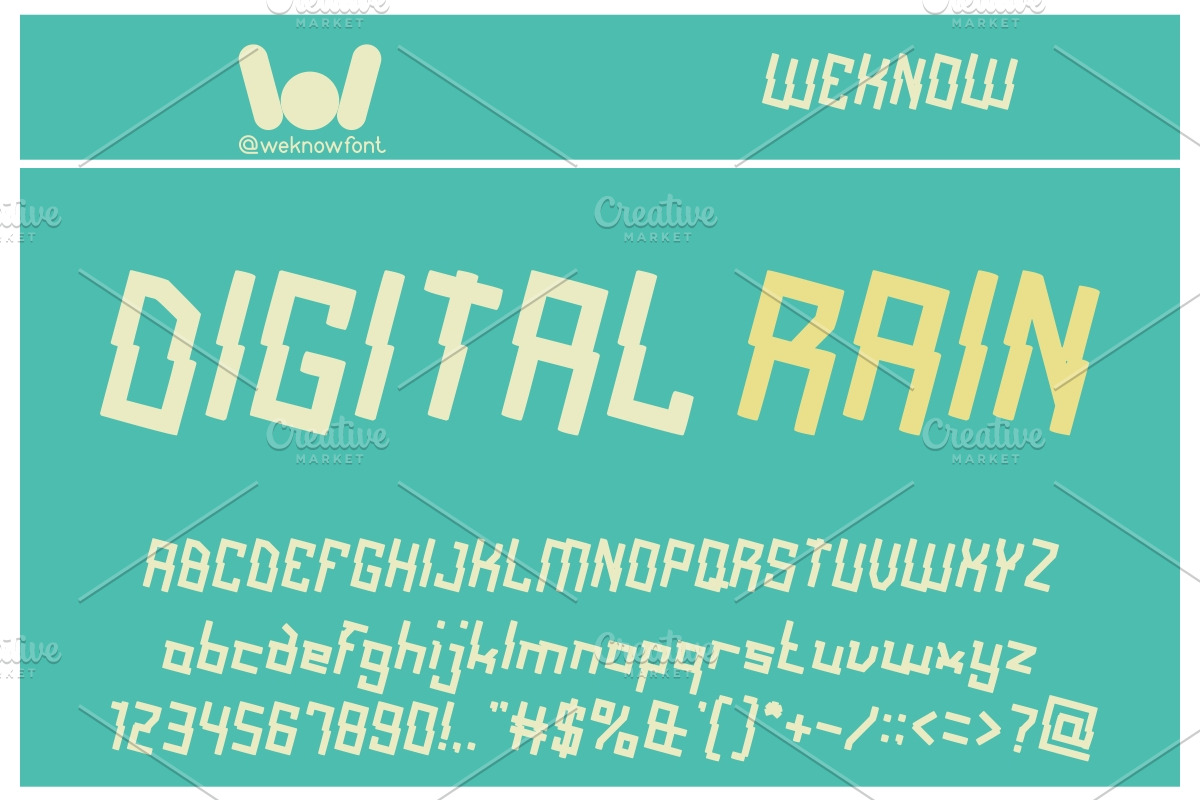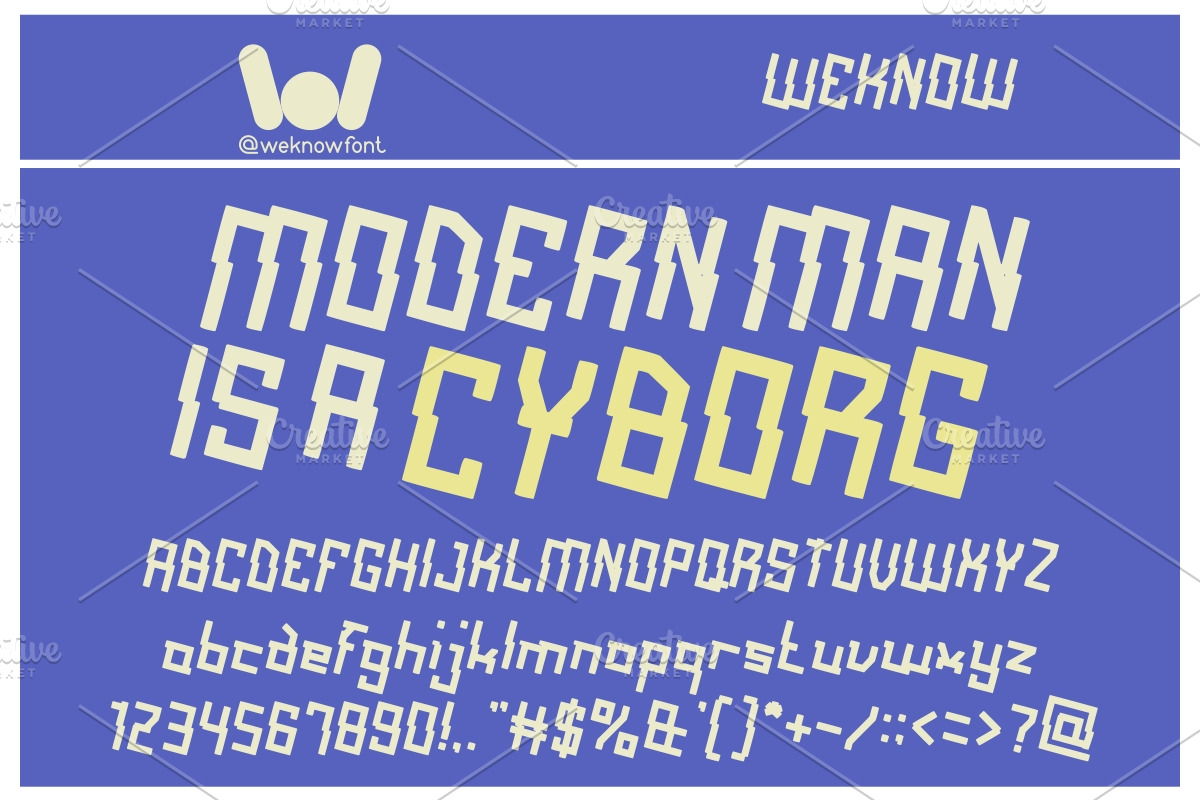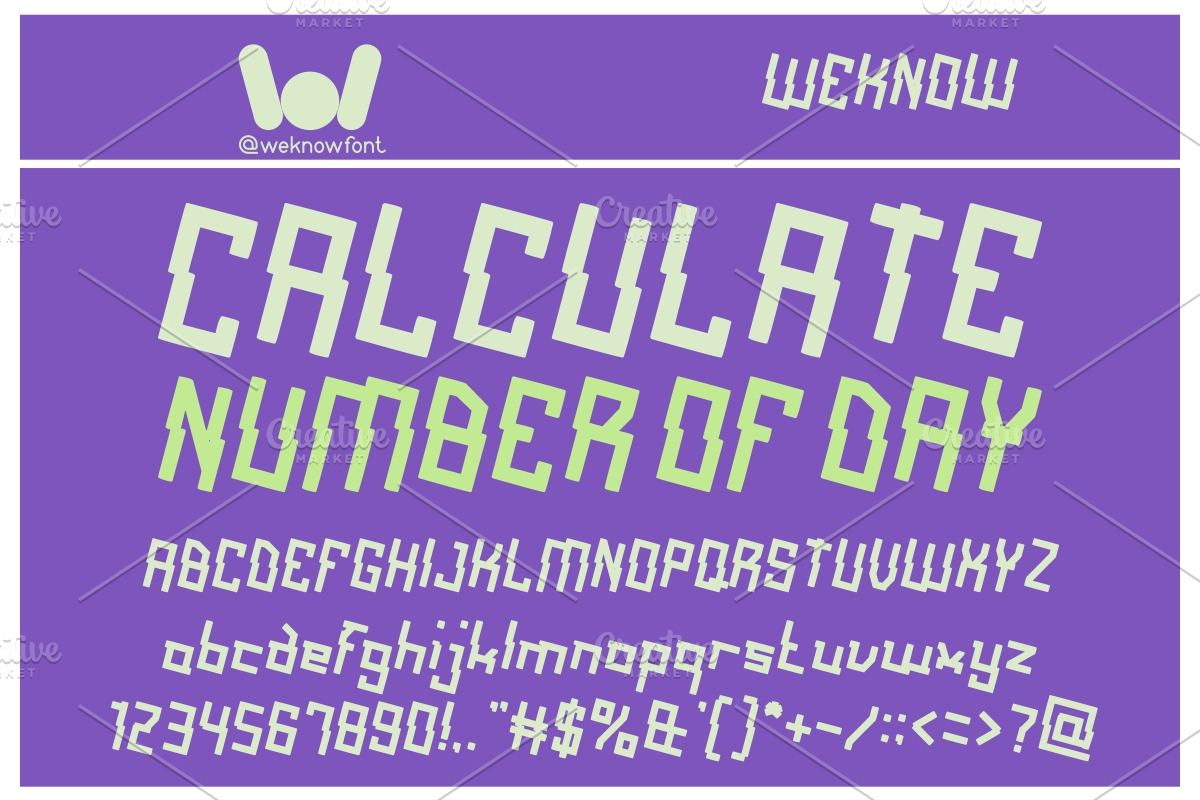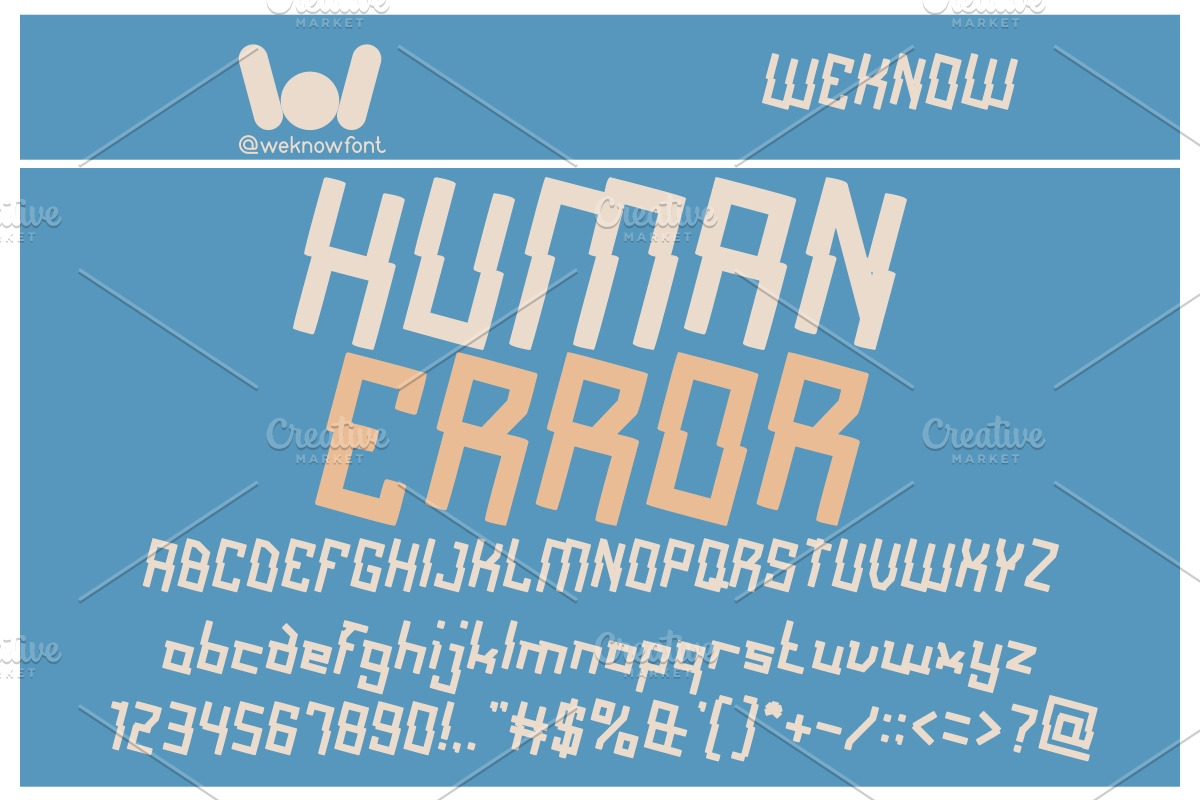
alot of love font
alot of love font by weknow is a font selected for branding, posters, packaging, typography.
- Alot Of Love-Hollow-Inverse Regular
- Alot Of Love-Hollow Regular
- Alot Of Love Regular
- Alot Of Love Bold
Why alot of love font is worth a look
alot of love font by weknow fits naturally into Branding, posters, packaging, typography.